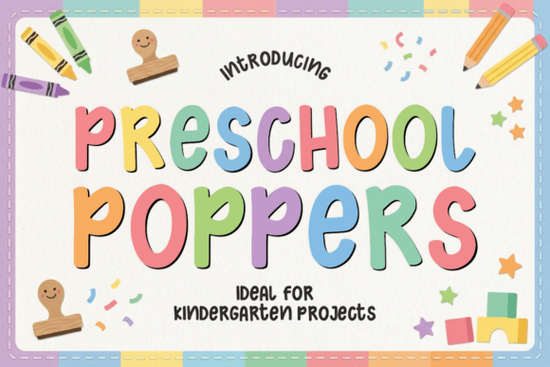
Looking for a font that brings energy and joy to your kids’ learning materials? Preschool Poppers is a playful, bold handwritten display font designed with early childhood education in mind. Its soft, rounded shapes and casual charm make it perfect for worksheets, classroom posters, activity sheets, and printable crafts. Whether you're a teacher, homeschooler, or small business owner creating children’s products, this font adds warmth and fun without overwhelming the design.
Why Preschool Poppers works well for educational designs
The key to its success lies in how natural and approachable it feels. Unlike stiff or overly polished fonts, Preschool Poppers mimics the real handwriting of young children slightly uneven, full of character, and full of personality. This makes it ideal for projects where authenticity matters, like lettering on coloring pages, storybook titles, or daily schedule charts.
It’s especially effective when paired with bright colors and simple illustrations. The font stands out without competing with other visual elements, helping important text like “Today’s Activity” or “Fun Friday!” grab attention instantly.
Where can you use Preschool Poppers?
- Classroom bulletin boards and seasonal displays
- Printable worksheets and learning games
- Children’s party invitations and thank-you cards
- DIY craft labels and sticker templates
- Shop items for Etsy or print-on-demand platforms
Because it’s a display font, it’s best used at larger sizes think headings, titles, and short phrases. Avoid using it for long blocks of text, as readability drops quickly. But for short bursts of fun and clarity, it’s hard to beat.
How it fits into your creative workflow
If you’re already using similar playful fonts, you’ll find Preschool Poppers blends well with others in your toolkit. For example, if you love bold, energetic styles, you might also enjoy Block Riot, which offers a more geometric, graffiti-inspired look. Or if you prefer softer, nature-themed designs, Gardenia brings a gentle, floral touch that pairs beautifully with hand-drawn illustrations.
For those who like clean lines with a personal feel, Outline gives a minimalist, sketch-like effect great for modern nursery themes. And if you're going for a slightly edgier vibe with texture and grit, Urban Crack delivers a raw, expressive edge that still keeps things kid-friendly.
What makes Preschool Poppers stand out
While many fonts try to mimic handwriting, few get the balance right between legibility and charm. Preschool Poppers avoids the “too scribbly” trap by keeping consistent spacing and clear letterforms. That means parents, teachers, and kids can read it easily even from a distance.
It also includes support for uppercase letters, basic punctuation, and common numerals, so you’re not limited to just fun words. You can create complete labels like “Snack Time – 10:30 AM” or “Circle Time Rules” with confidence.
Final thoughts for creators and small businesses
If you’re designing for preschoolers, toddlers, or early learners, this font helps set the tone before a single image is added. It’s not just about looking cute it’s about feeling welcoming. When kids see their name in a fun, friendly style, it builds excitement and connection.
Take a moment to explore how it looks with your current color palette and layout ideas. Try it in a mock-up of a weekly planner or a themed activity sheet you’ll likely find yourself reaching for it again and again.
- Test Preschool Poppers at different sizes to find the sweet spot for your project
- Pair it with solid background colors to keep the focus on the text
- Use it only for headlines or short phrases not for body copy
- Compare it side-by-side with other playful fonts like Sparko or Gardenia to see what fits your brand best